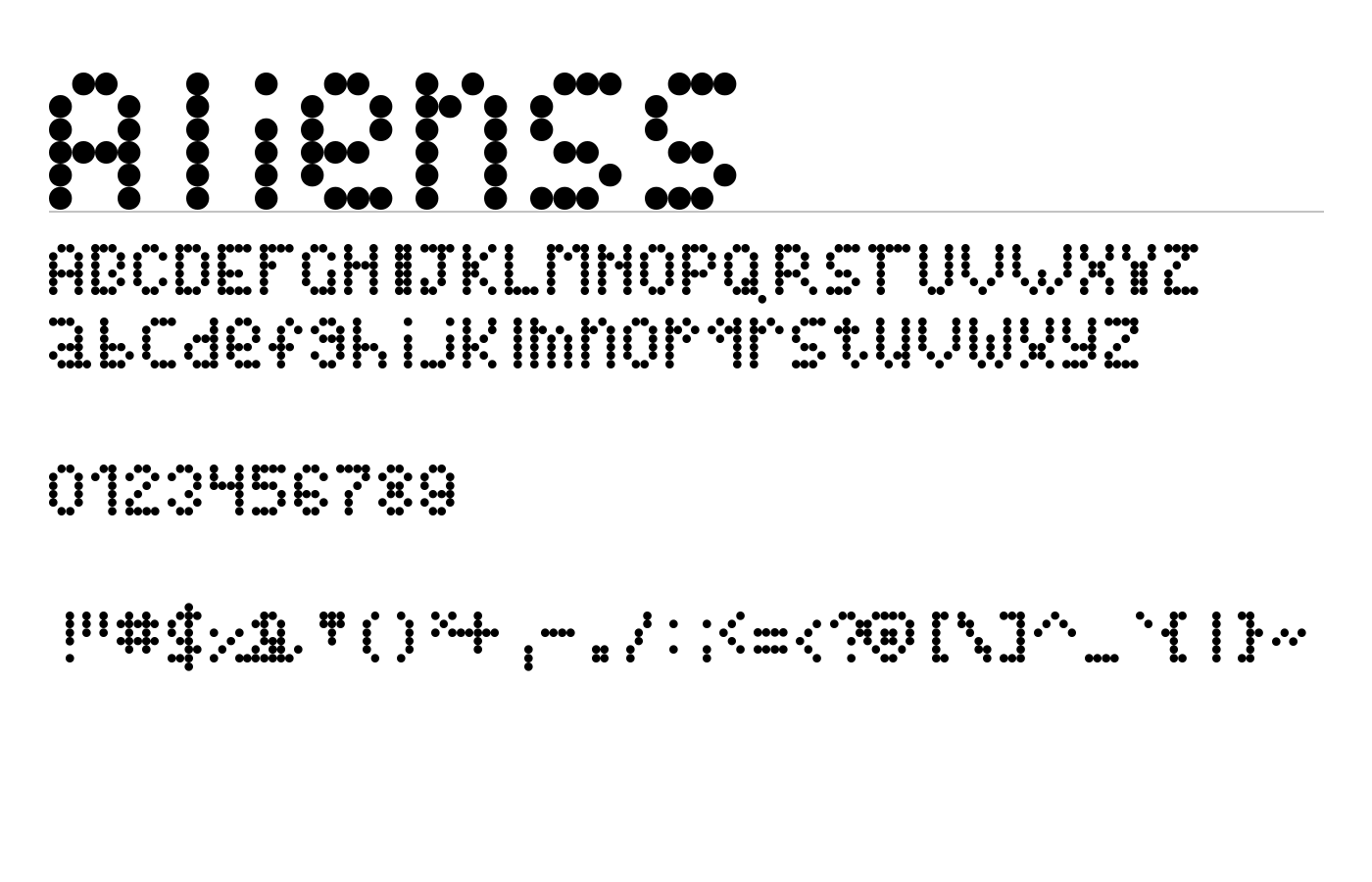
Alienss is a unique, futuristic sans serif font composed of evenly spaced dots that form geometric letter shapes. Its playful, tech-inspired style with a high x-height and uniform weight creates a modern, digital feel perfect for sci-fi themes, technology branding, or creative headlines. This font works best where a bold, eye-catching, and unconventional look is needed to stand out.
Alienss Font
About Alienss Font
| Font family | Alienss Font |
| Designer | Rayz |